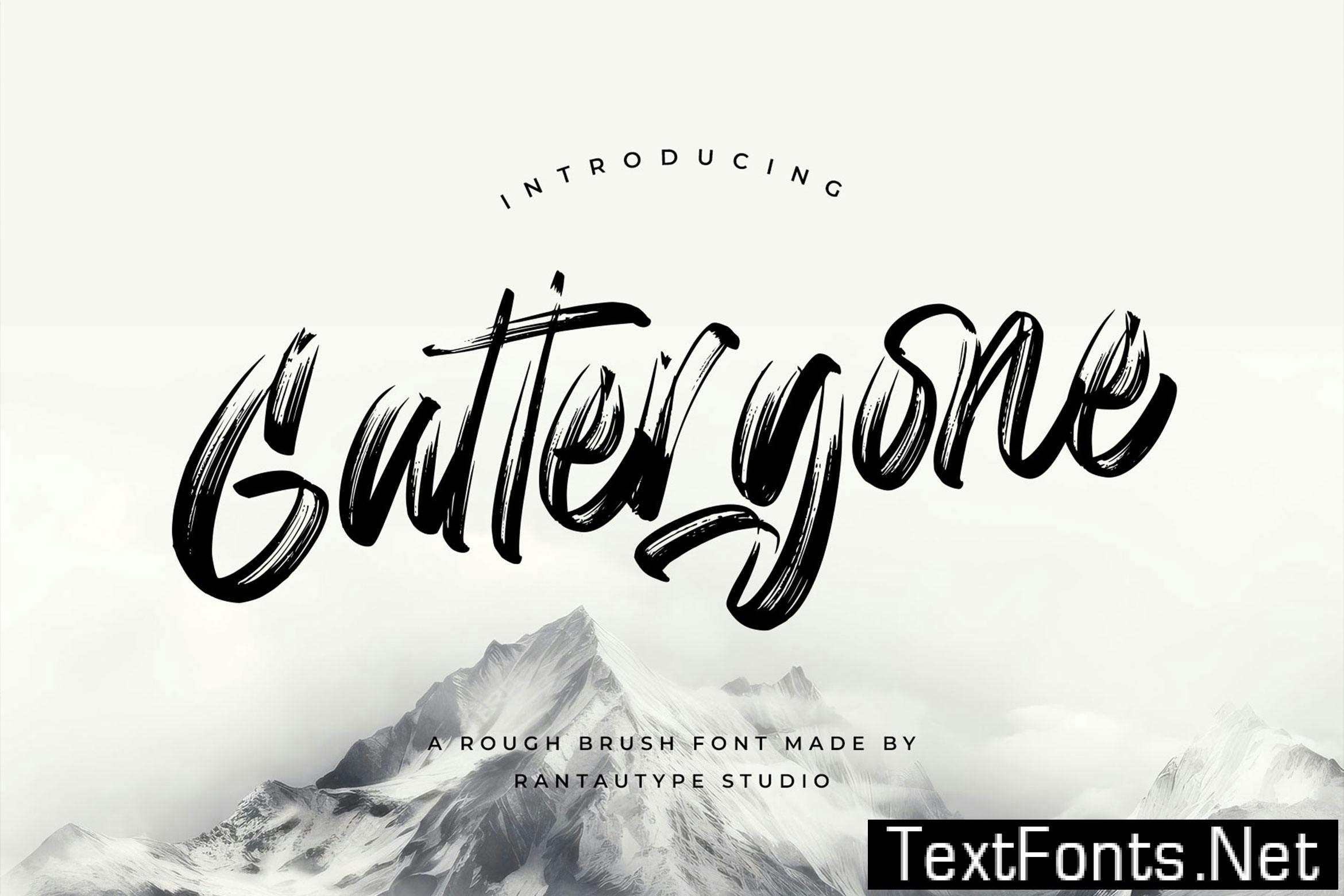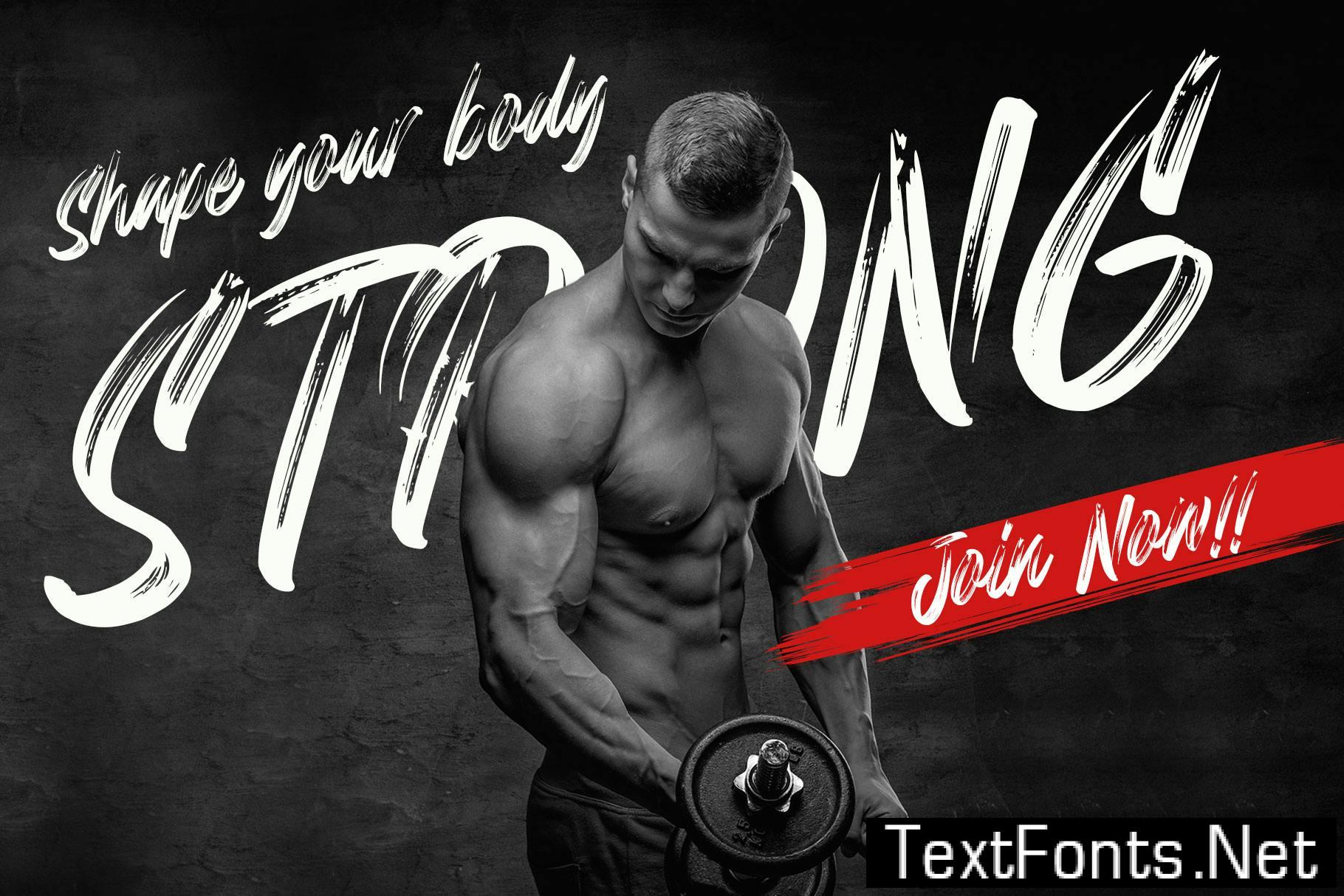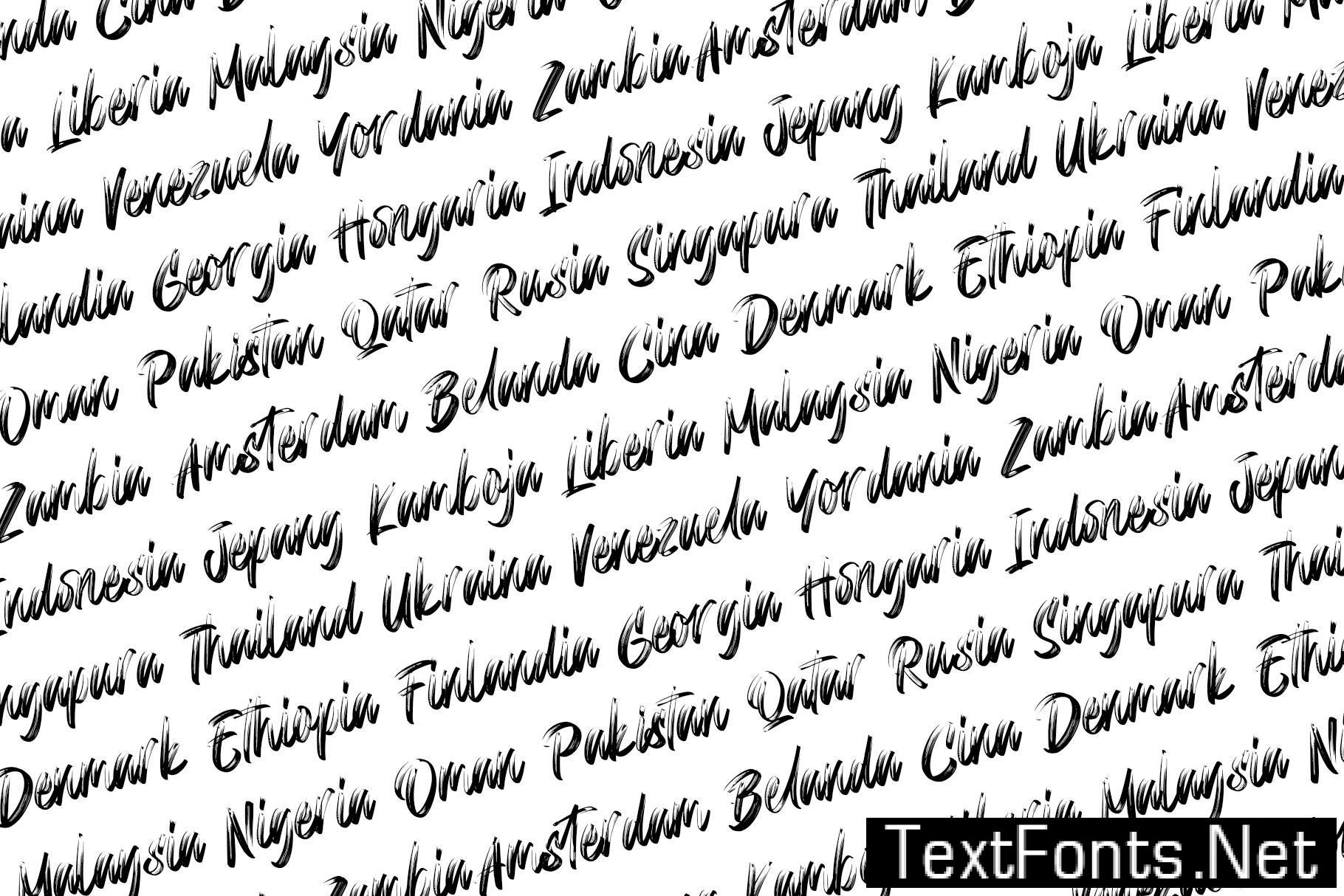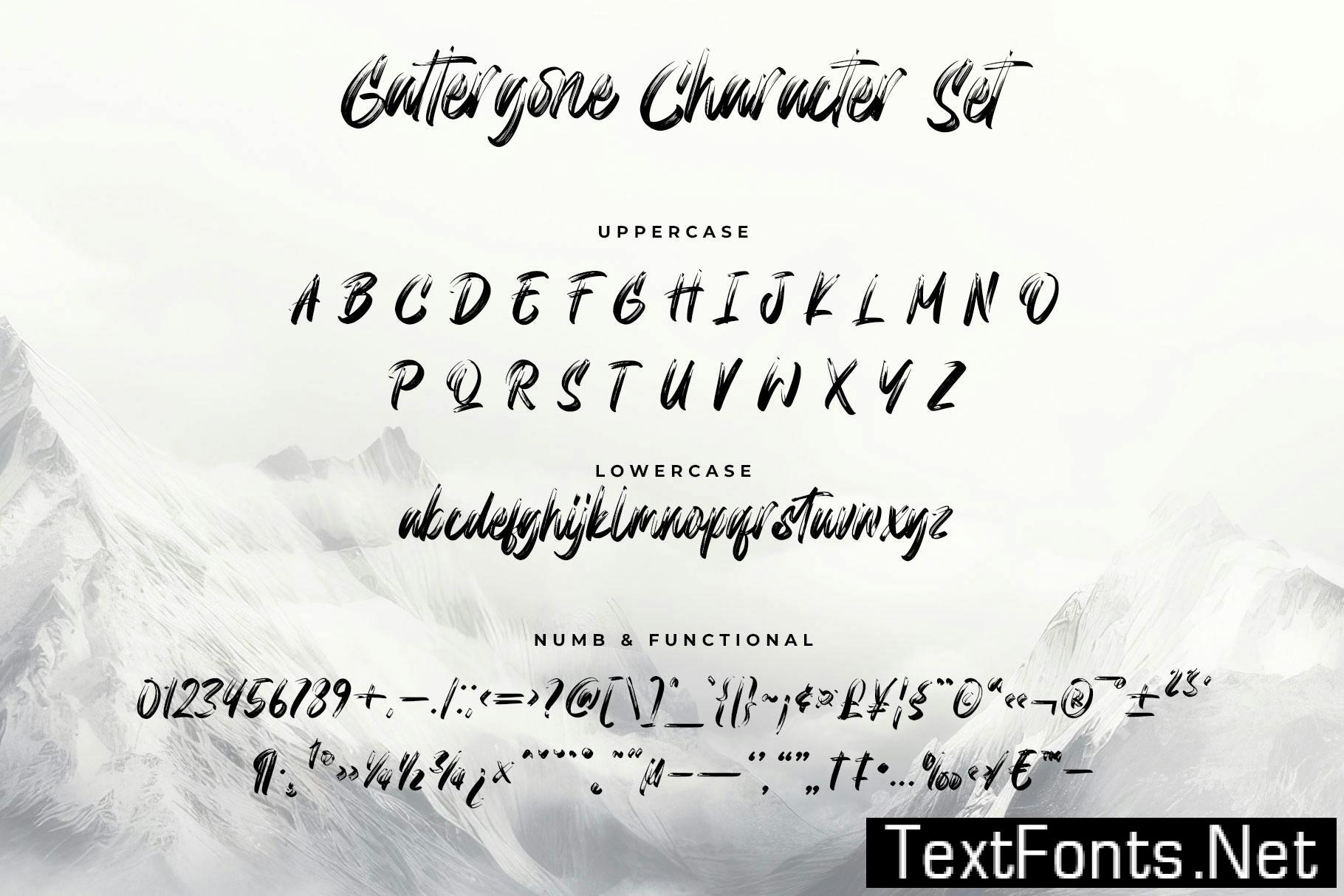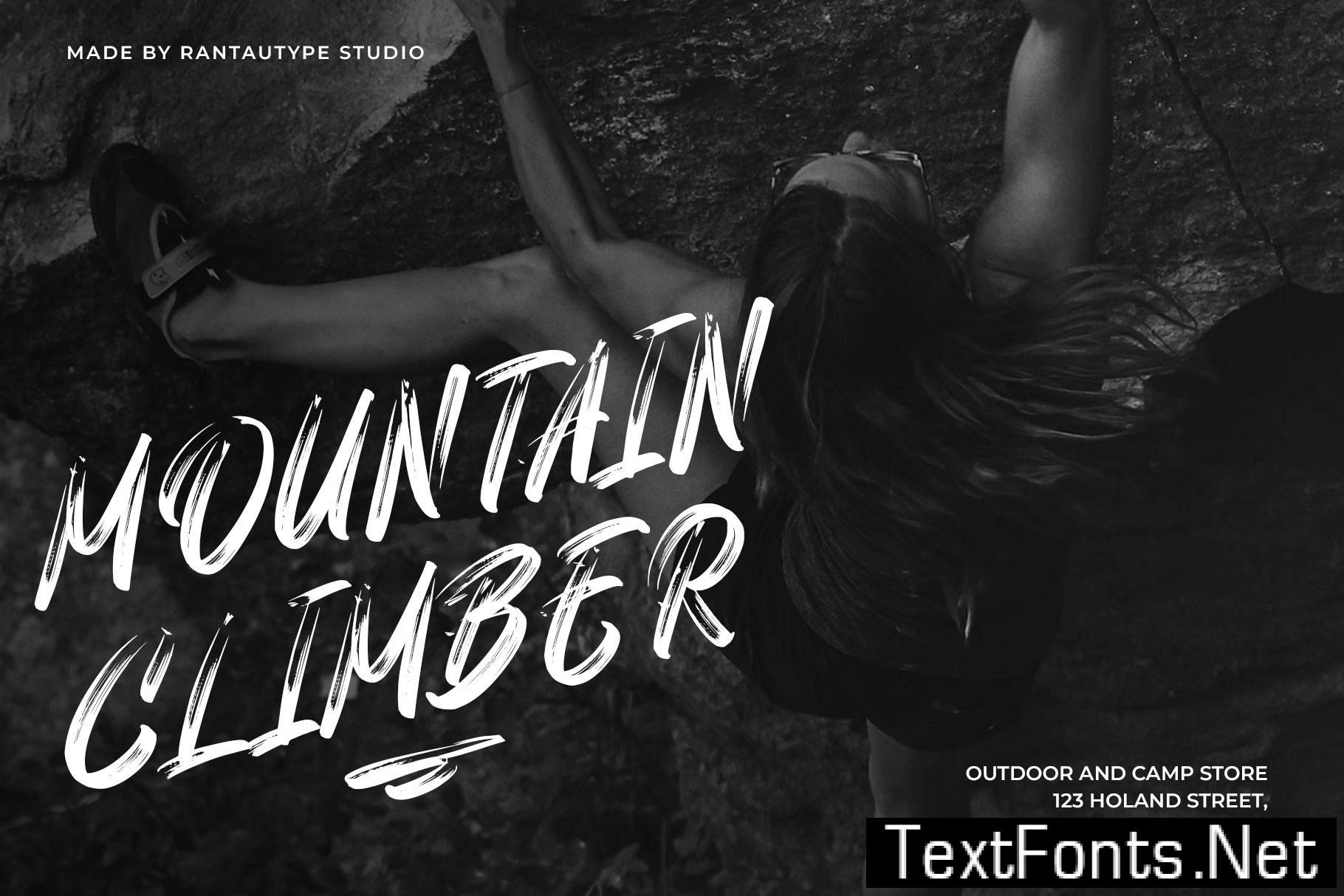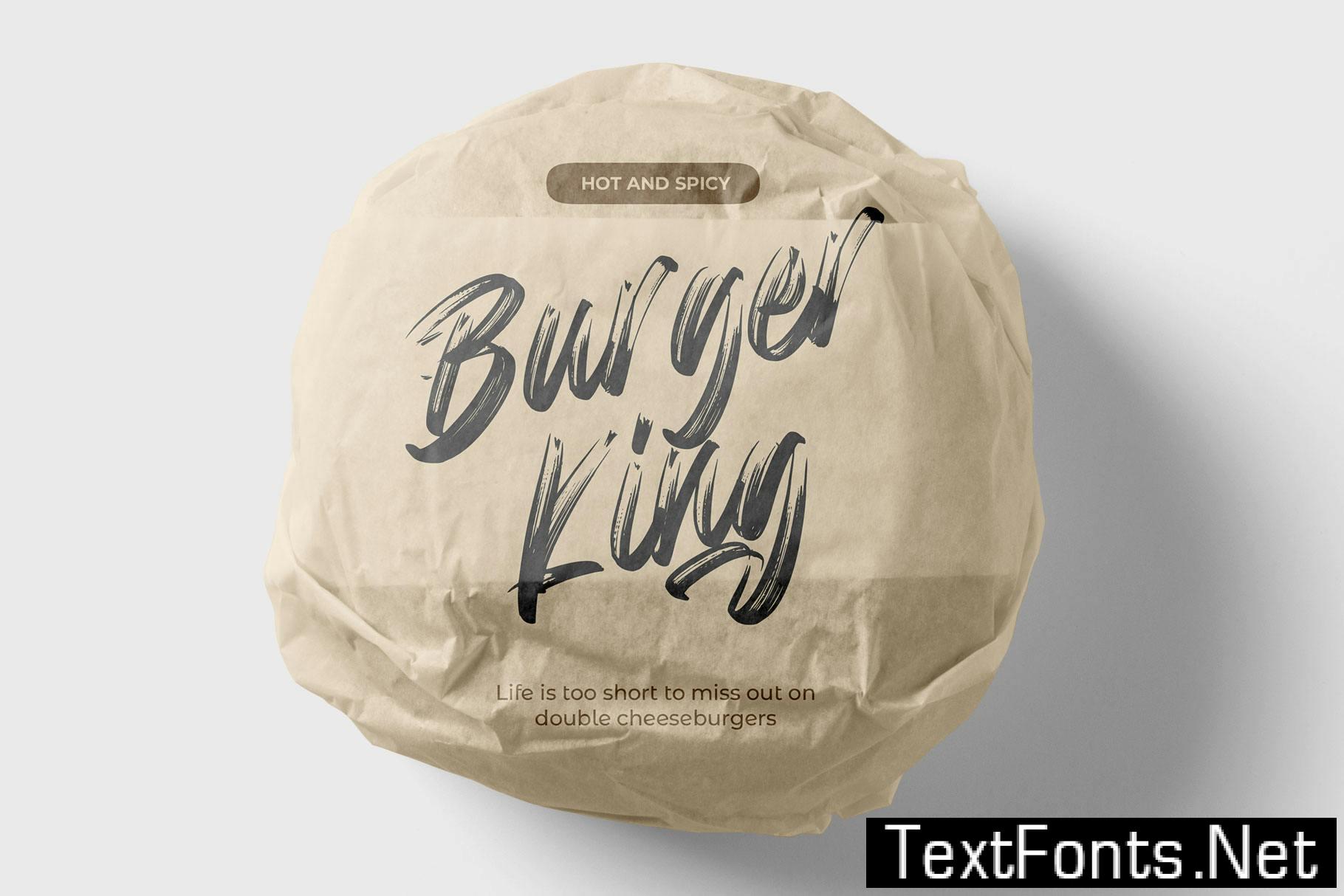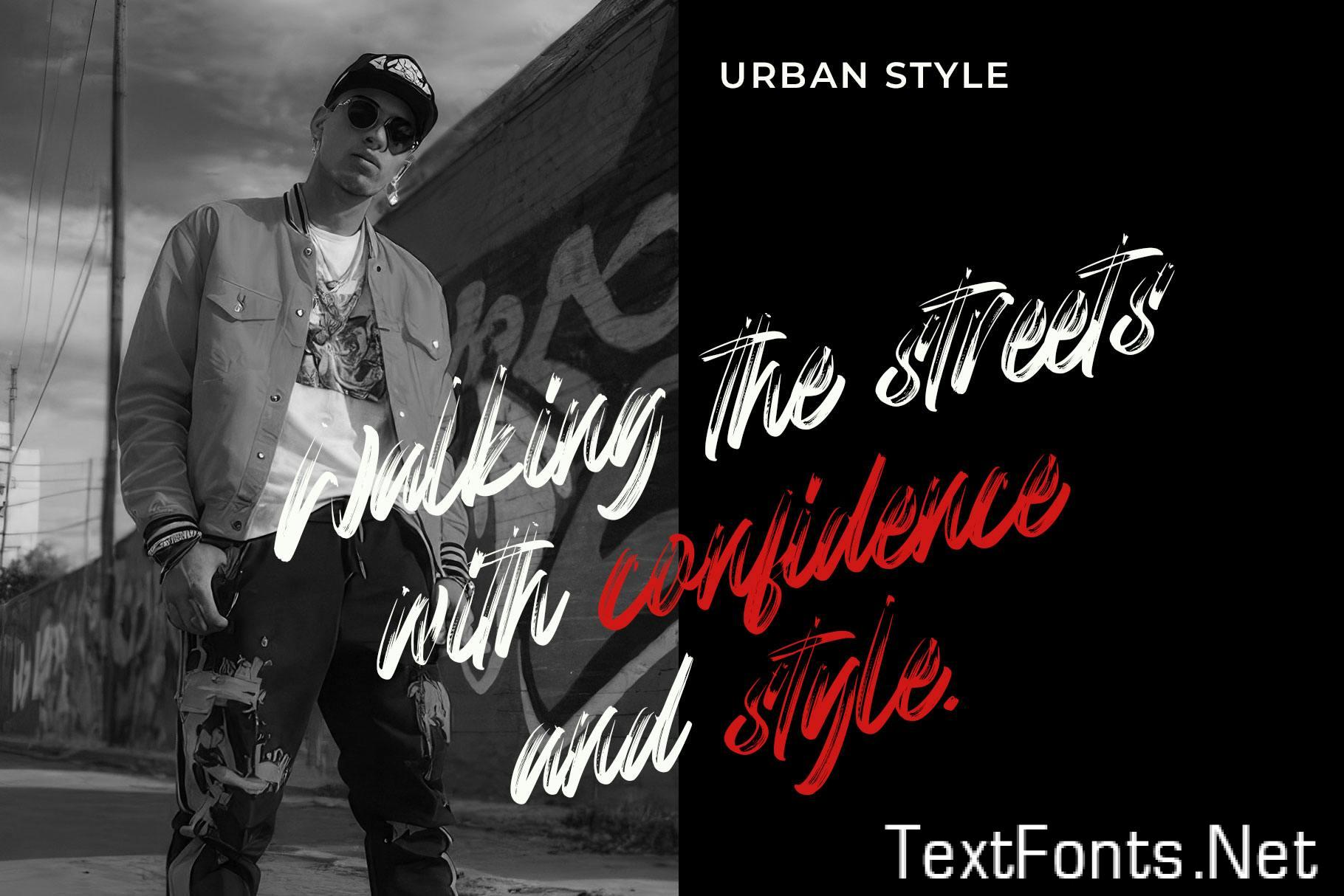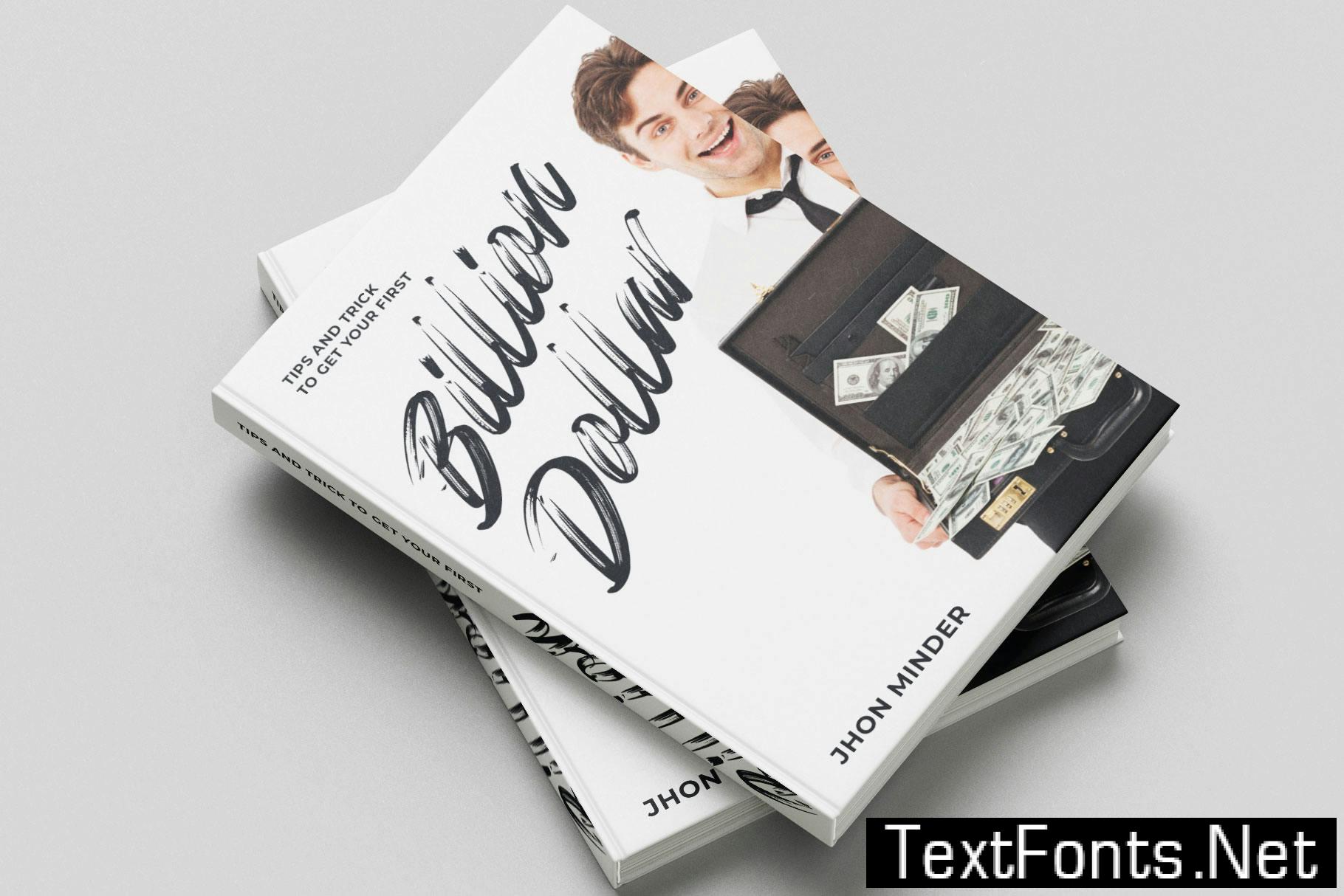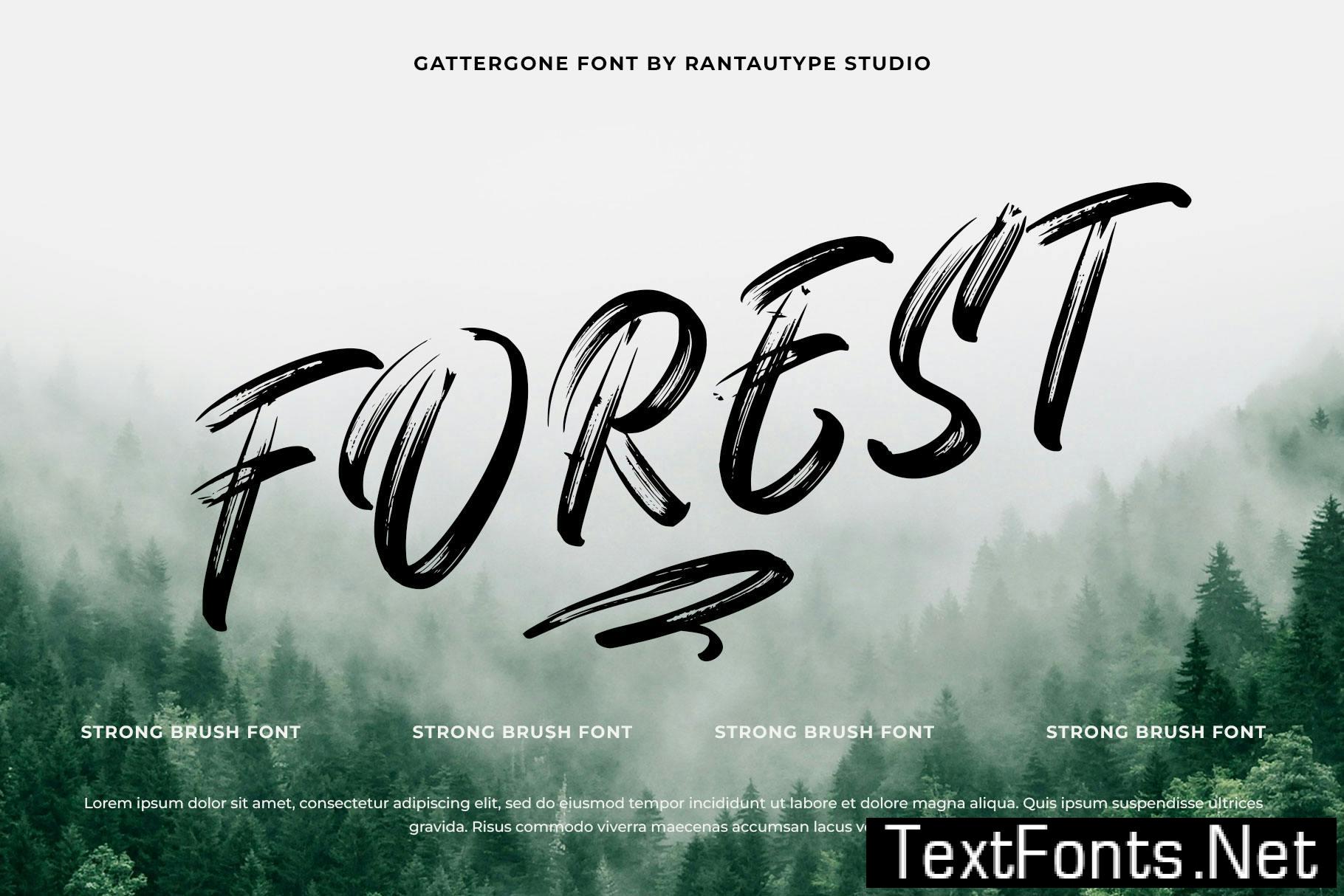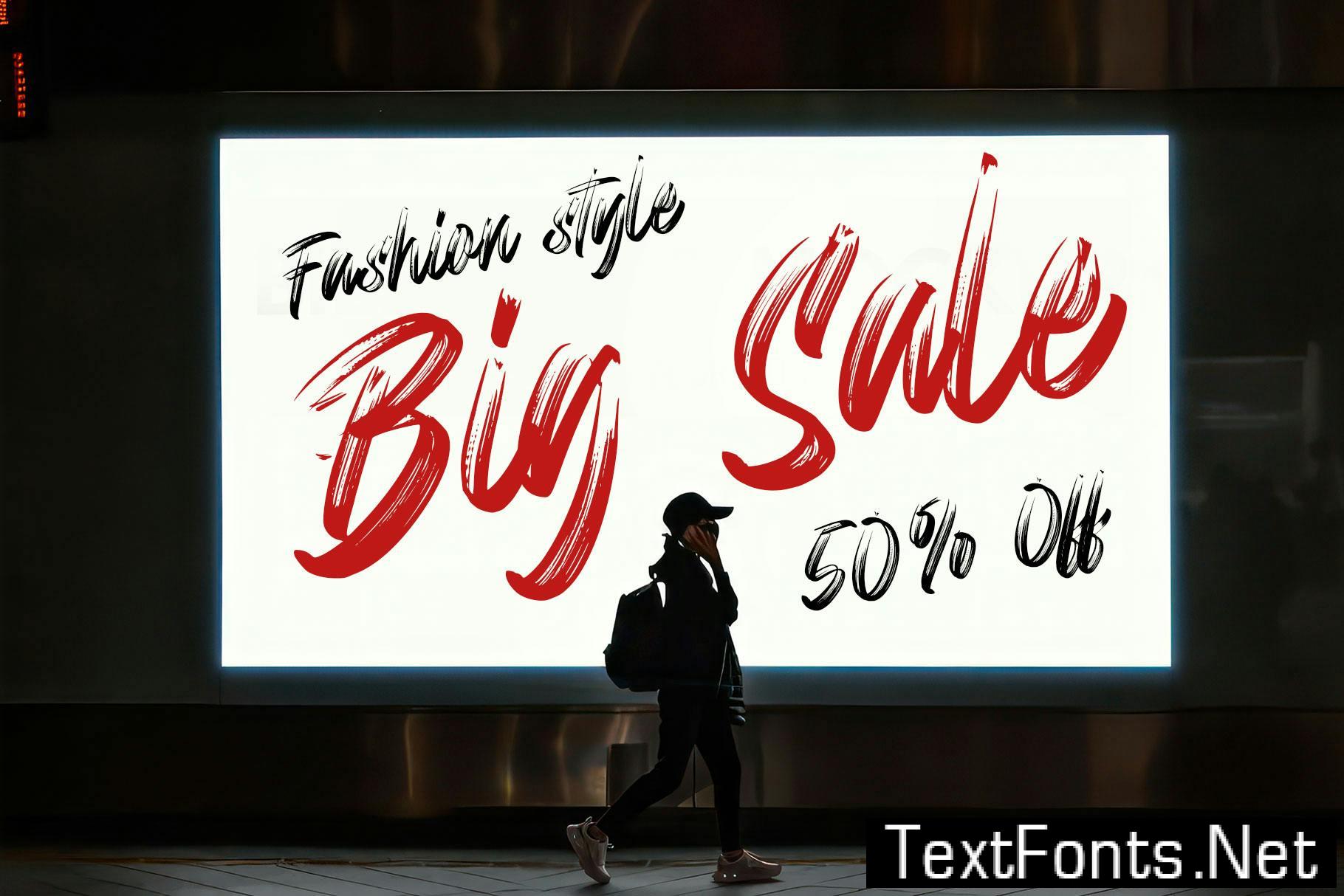
Gattergone Rough Brush Font 6QKMXFT
Gattergone is rough brush font with dinamic and unique slash handcafted font. Gattergone bring unleashes the power and strong into your design project more attractive and stand out!. Gattergone come with alternate, ligature and multilingual character. We keep this font look strong, bold, natural and eye catch.
Gattergone is a perfectly choice for any creative endeavor, chic, lifestyle design such as logos, advertisements, watermark on photography, stationery, branding project, display and magazine, invitation, corporate brand, product design, label, business project and other project with handwritten taste.
* Standart Glyphs
* Numberial and Functional
* Alternate and Ligature
Fonts include **Multilingual Character** for: Afrikaans, Albanian, Asu, Basque, Bemba, Bena, Breton, Chiga, Cornish, Dutch, English, Estonian, Filipino, Finnish, Friulian, Galician, Gusii, Indonesian, Irish, Italian, Kabuverdianu, Kalenjin, Kinyarwanda, Luo, Luxembourgish, Luyia, Machame, Makhuwa-Meetto, Makonde, Malagasy, Manx, Morisyen, North, Ndebele, Nyankole, Oromo, Portuguese, Quechua, Romansh, Rombo, Rundi, Rwa, Samburu, Sango, Sangu, Scottish, Gaelic, Sena, Shambala, Shona, Soga, Somali, Spanish, Swahili, Swedish, Swiss, German.